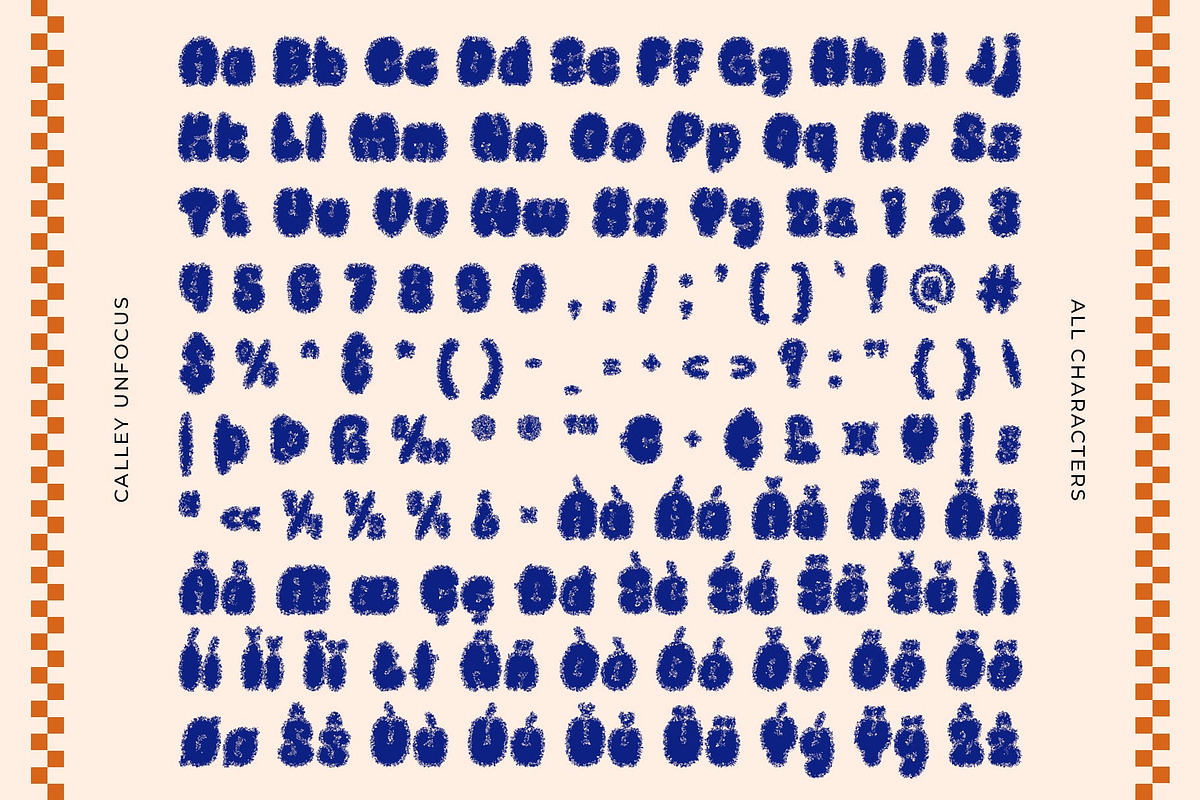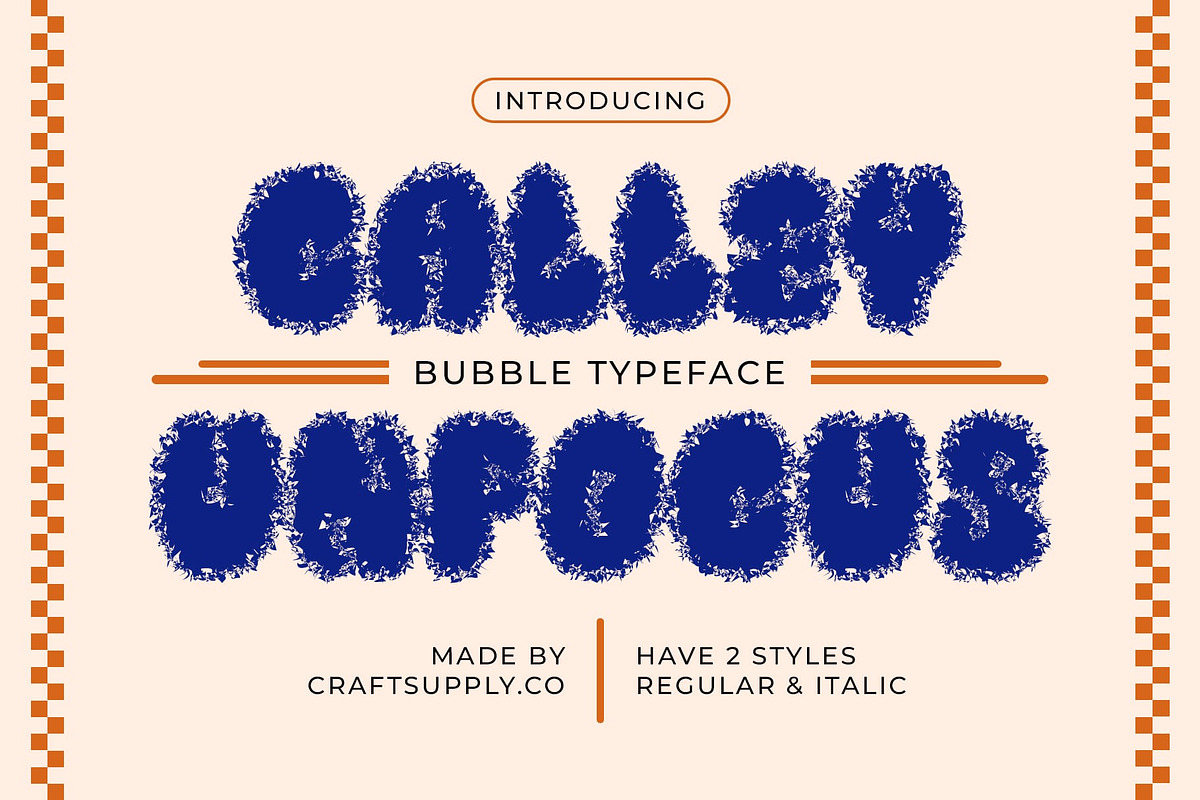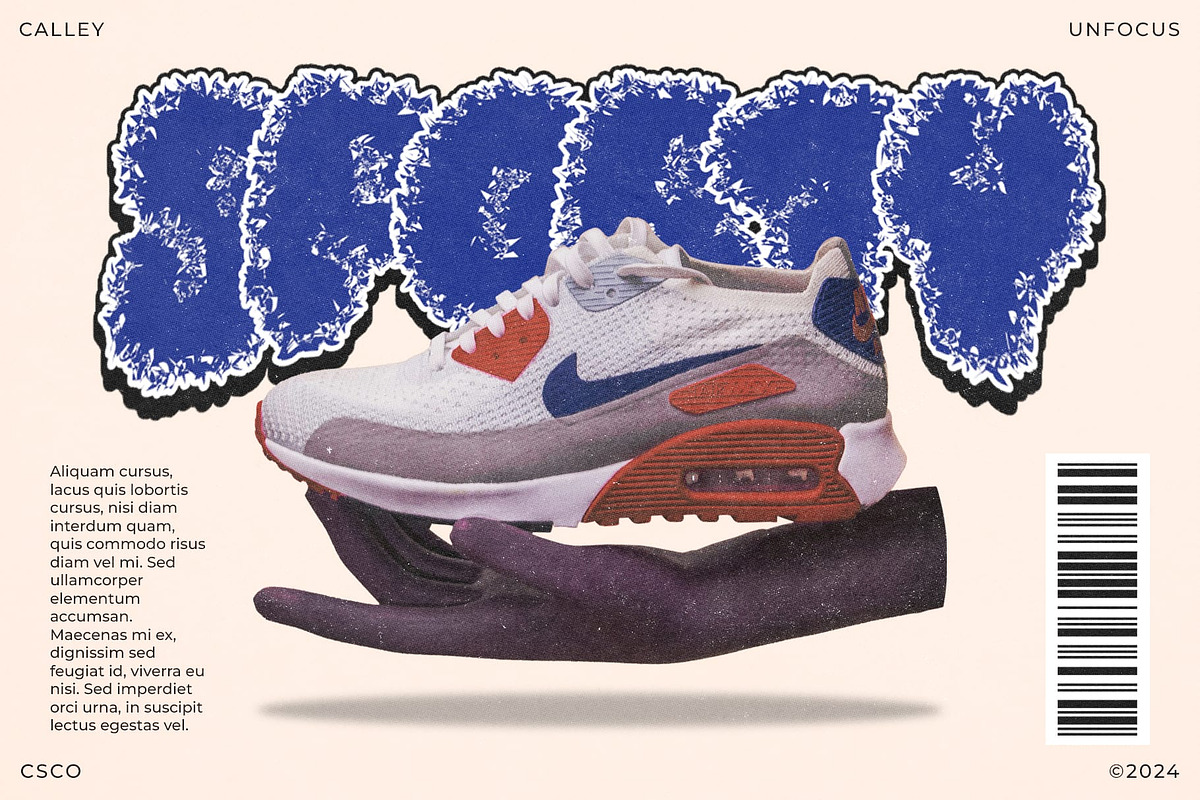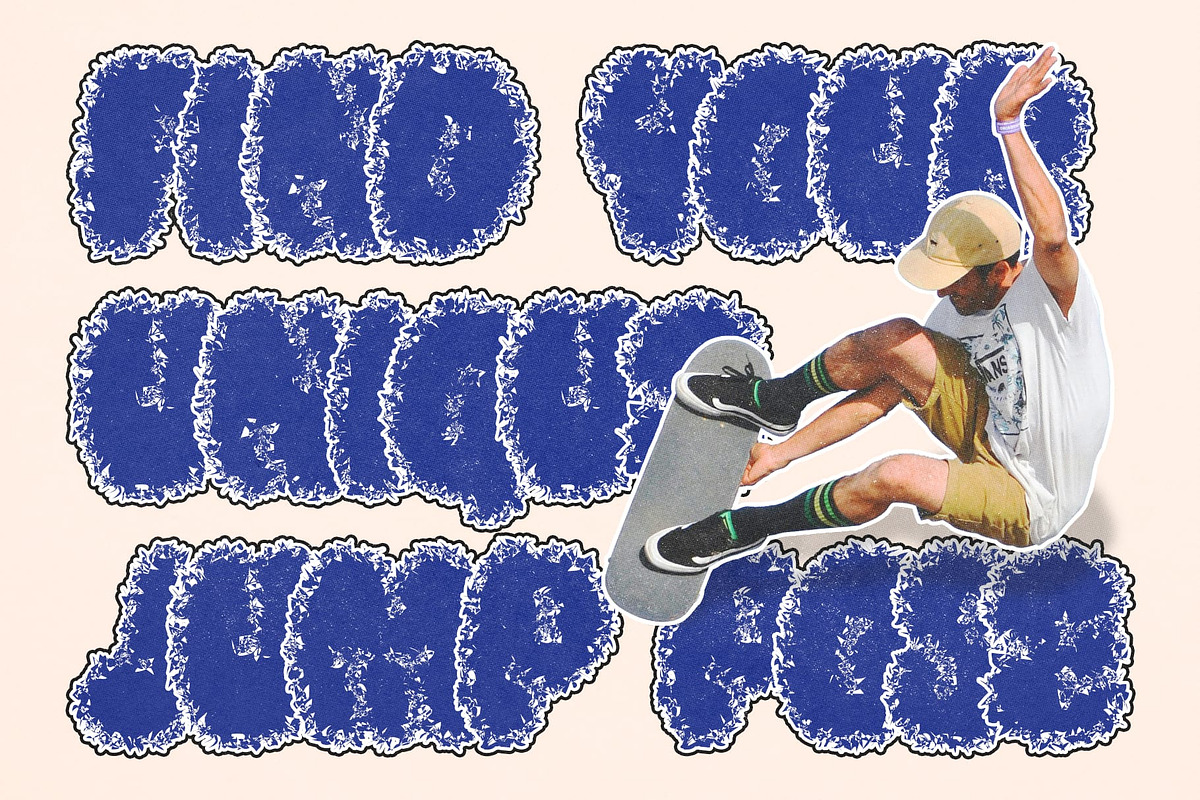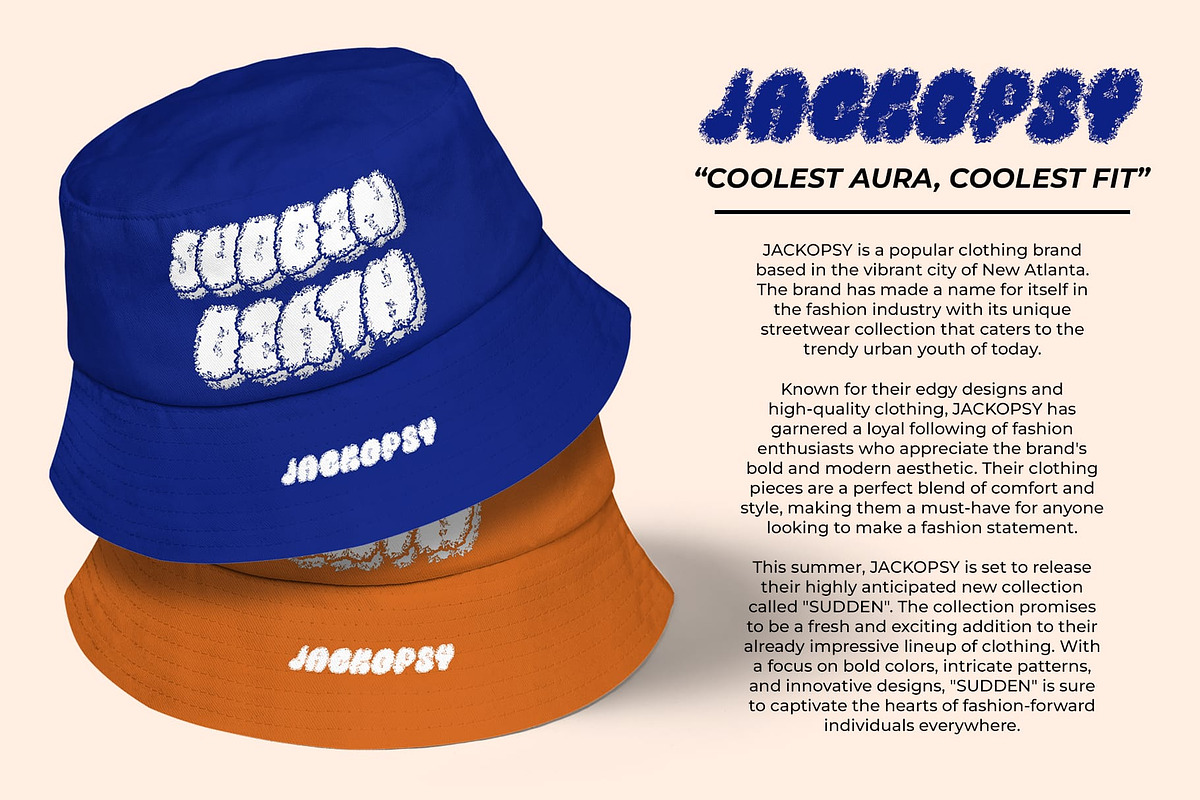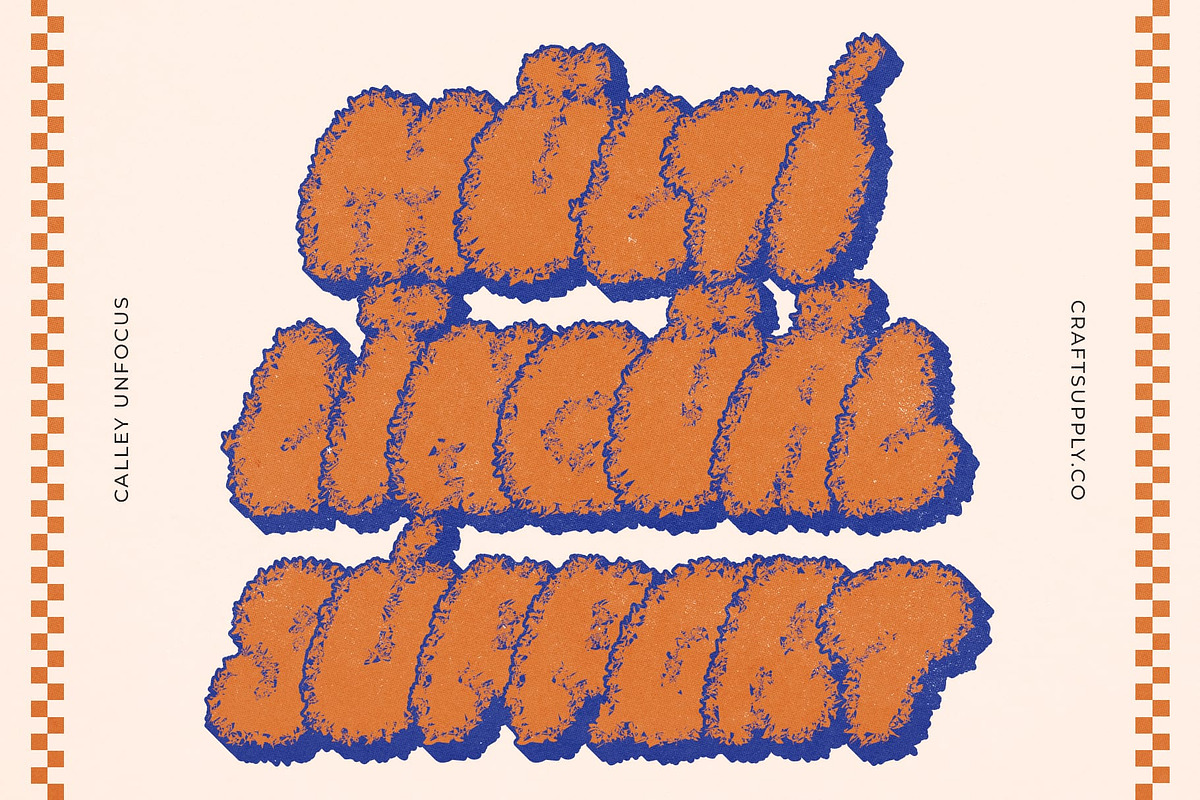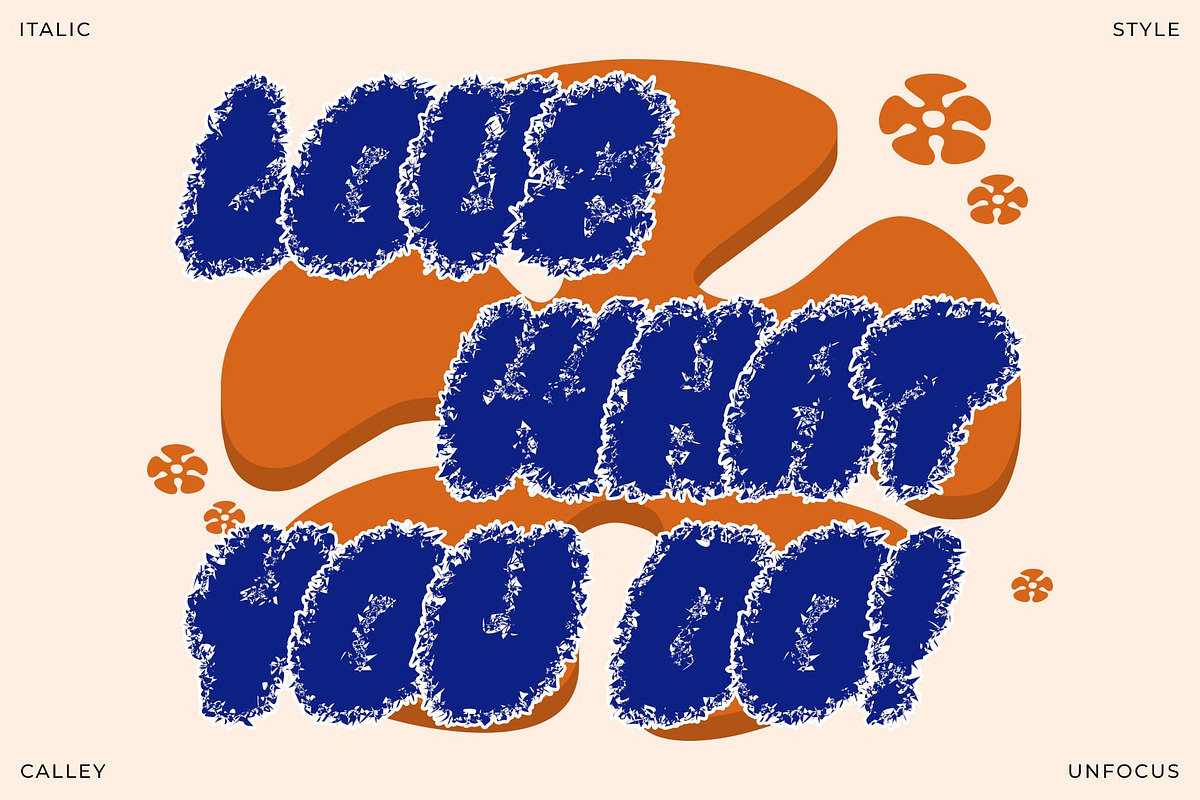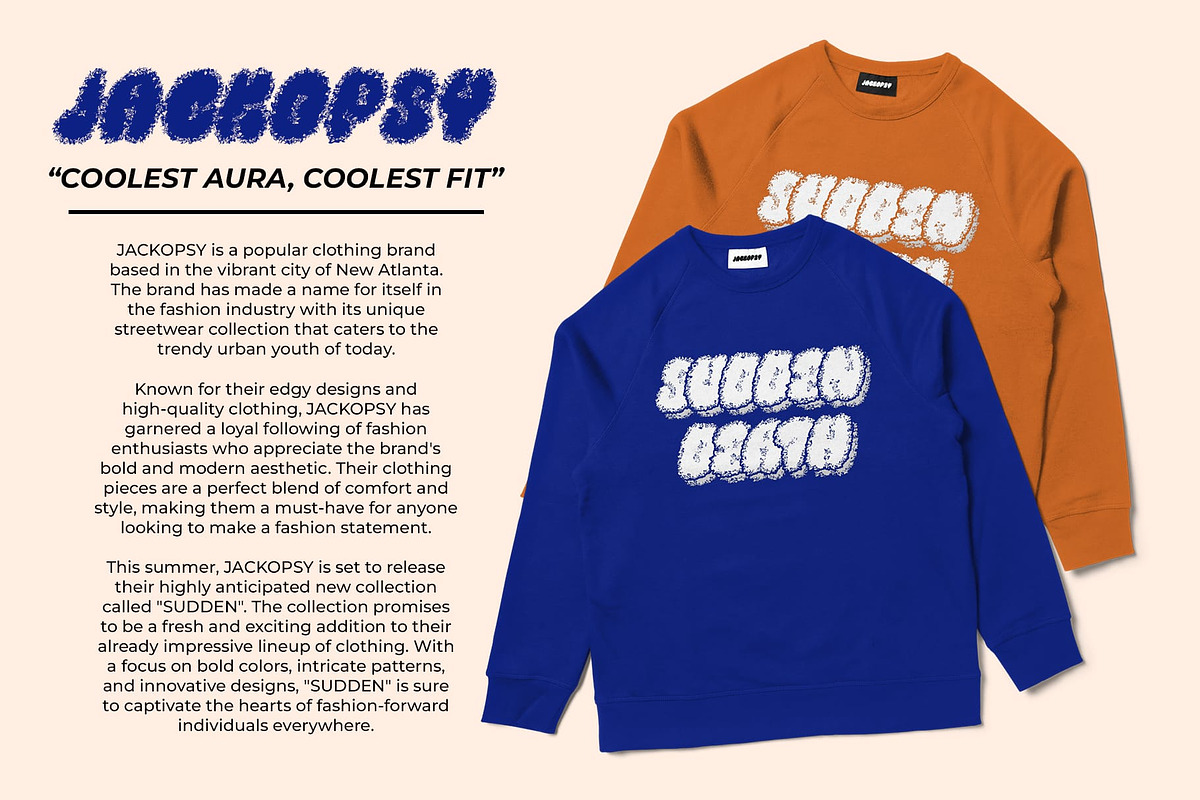
Calley Unfocus
Calley Unfocus: Bold Bubble Display Font with Unfocused Effect
Cute and Funky Visual Appeal
Calley Unfocus is a display font featuring bold, bubble shapes and an unfocused effect that creates a cute and funky impression. The thick, bubbly design delivers a cheerful and engaging look, perfect for projects that aim to capture attention with a fun and vibrant aesthetic.
Cheerful and Engaging Design
The bold, bubble shapes of Calley Unfocus bring a sense of joy and energy to your designs. This playful style makes it ideal for creative projects like posters, branding, and promotional materials, where a cheerful and engaging look is essential.
Unique Artistic Dimension
The unfocused effect in Calley Unfocus adds a unique artistic dimension to its bubbly design. This feature introduces a sense of movement and dynamism, ensuring your projects stand out with their distinct and captivating visual style.
Perfect for Highlighting Uniqueness
Whether used for posters, branding, or promotional materials, Calley Unfocus excels in highlighting cheerfulness and uniqueness. Its bold shapes and unfocused effect make it a versatile choice for creating memorable and creative visual experiences.
Elevate Your Designs with Calley Unfocus
Choose Calley Unfocus to infuse your designs with a bold, bubbly, and unfocused charm. Perfect for projects that prioritize a cute and funky impression, this font ensures your creative works are both engaging and distinctive.